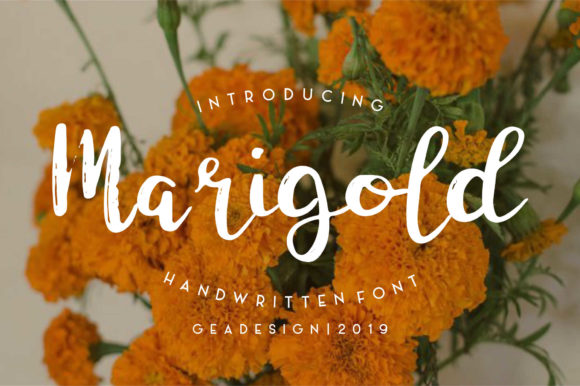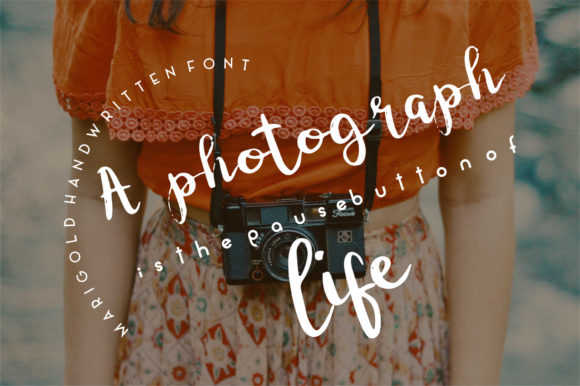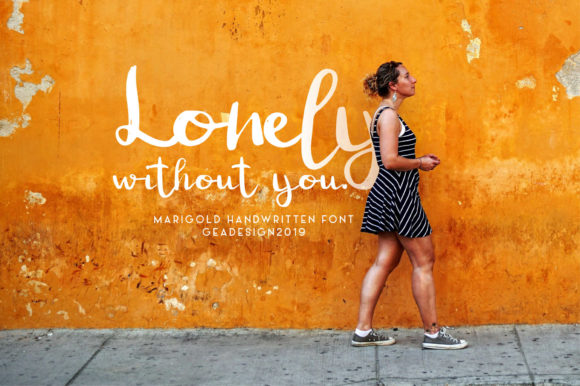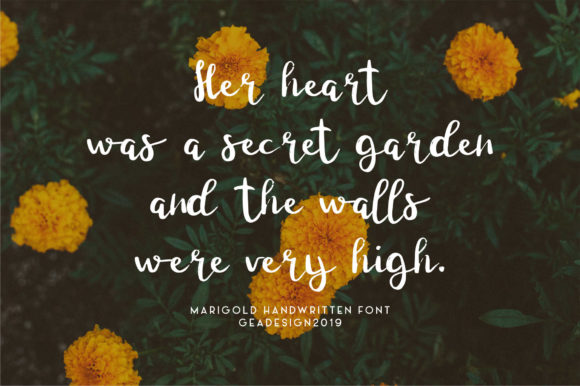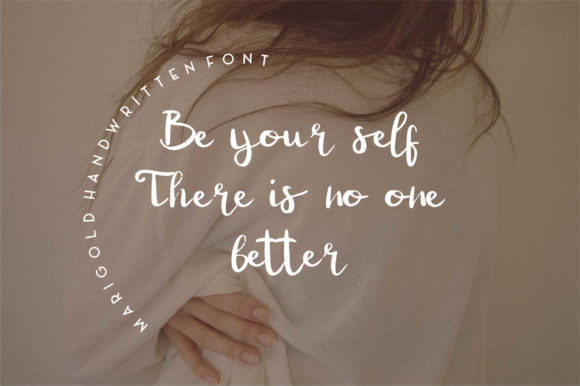
Marigold Font
About Marigold Font
Marigold is a unique handwritten font. Its simple, yet elegant feel will turn any design project into a true stand out.